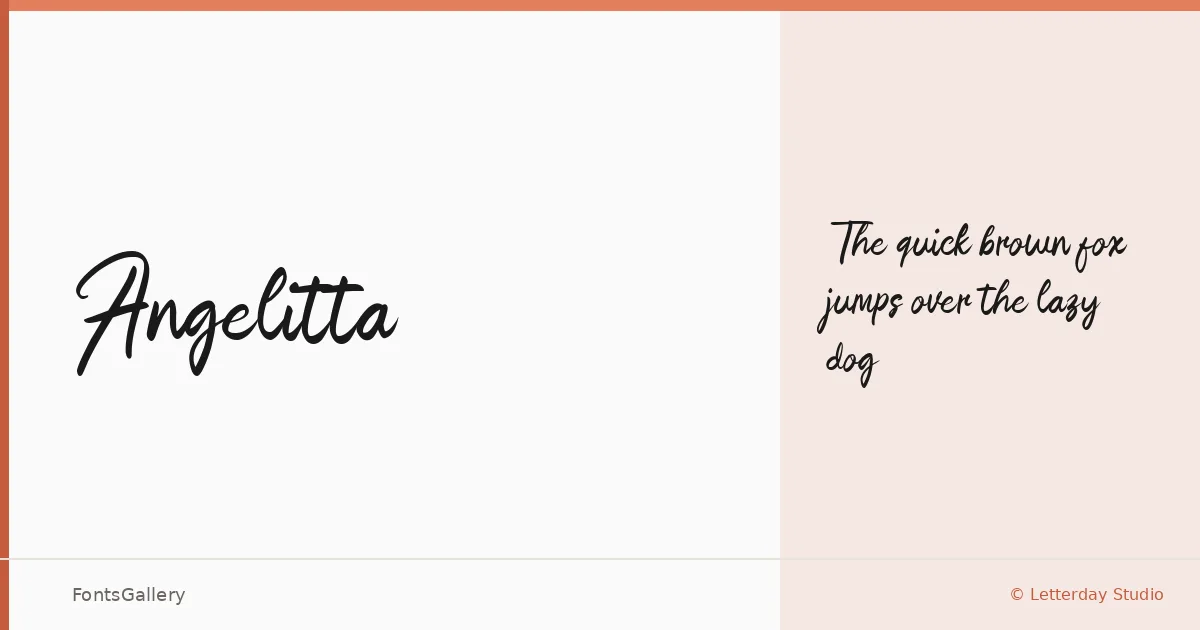
About Angelitta Font
There is a deliberate softness to this script — the kind of unhurried pen movement that reads as genuinely handwritten rather than mechanically constructed. Letterday Studio released it under their 2021 copyright, and the single Regular cut carries enough personality on its own to hold a composition together without needing weight variation to do the work.
This is a handwritten script that sits firmly in classic, elegant, and romantic territory — the sort of face that feels at home on cream card stock as much as on a polished digital canvas. The family ships as one style, Regular, in both TTF and OTF formats, covering the Latin character set. The letterforms have a flowing, calligraphic quality: connective strokes that feel natural rather than forced, and a rhythm that keeps long strings of text from looking stiff.
The obvious home for this script is wedding stationery, invitation cards, and greeting cards, though its elegance translates just as well into branding and logo work where a handcrafted signature feeling is the goal. For pairing, the clean geometry of Helvetica or Anglecia Pro makes a strong contrast companion, while AQUA, Abrade, and Aranea offer alternatives that let you tune the overall mood from minimal to more decorative.